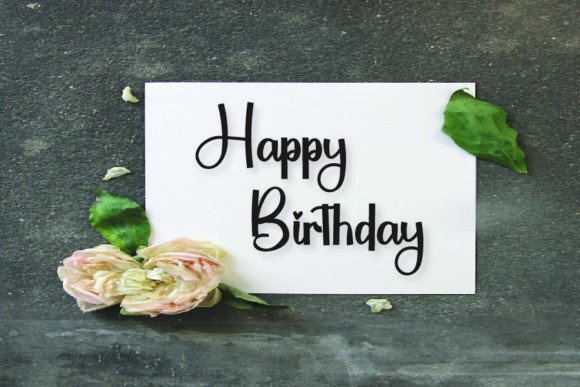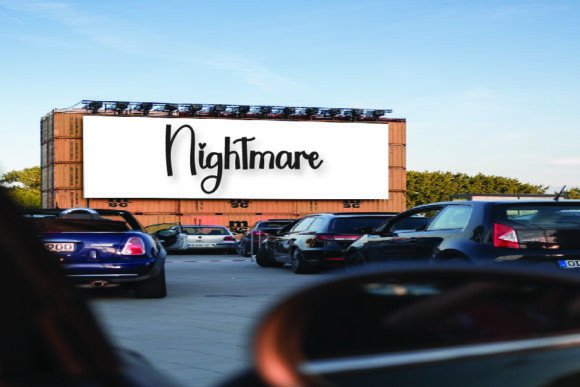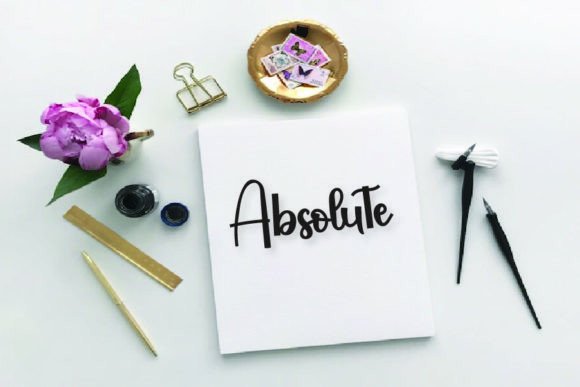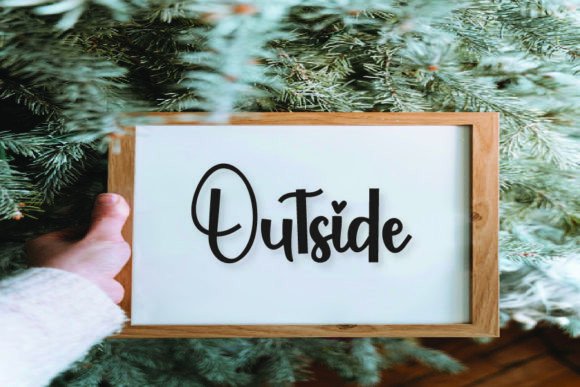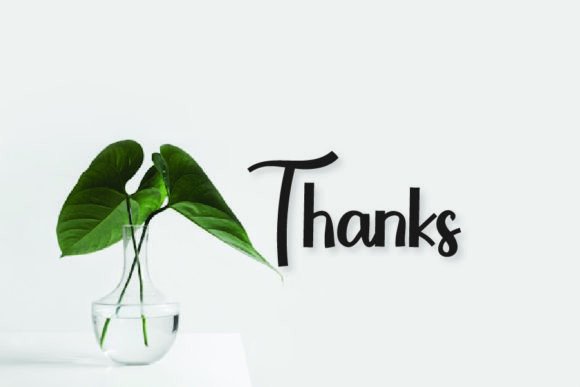
Unlocking the Magic of Handwritten Fonts: Introducing Autography Font
Have you ever stared at a blank canvas, pen in hand, and felt the urge to create something truly unique and personal? For many designers, this moment of creative inspiration is what drives them to craft memorable brand identities, quotes, and logos. It’s this same spark of imagination that led to the creation of Autography Font – a simple yet elegant handwriting font designed to capture the essence of handwritten text.
Autography Font is more than just a font; it’s a way to infuse your designs with warmth and character. With its natural flow and gentle imperfections, this font is perfect for branding, quotes, logos, and a wide range of visual projects. For designers, Autography Font offers a valuable tool for adding a personal touch to their work, making it stand out in a crowded digital landscape.
Autography Font Key Features
- Unique Characteristics: Autography Font features a unique blend of modern and handwritten styles, making it perfect for creating personalized and artistic designs.
- Script and Ligature Support: The font includes a wide range of script and ligature styles, allowing for intricate and elegant typography in both digital and print applications.
Autography Font Review
Overall, I have mixed feelings about Autography Font. While it has some unique qualities, it falls short in a few areas.
- The most striking feature of Autography Font is its elegant, handwritten feel. It’s perfect for titles, headings, and other text where you want to add a touch of sophistication.
- The font is highly legible, making it suitable for body text as well. The letterforms are clear and well-proportioned, which is essential for readability.
- Autography Font comes in a variety of weights, from Light to Bold, allowing for flexibility in design.
- One of the main issues I have with Autography Font is its limited x-height. This can make the text appear cramped or congested, especially in body text.
- The font lacks a true Italic style, which can be a problem if you need to use italics for emphasis on a specific point.
- While the font is highly legible, it can be difficult to read at small sizes, particularly in digital environments.
In conclusion, Autography Font is a solid choice for designers who want a high-end, handwritten feel in their typography. However, its limitations should not be ignored. With some careful consideration and usage, it can be a valuable addition to your design toolkit.